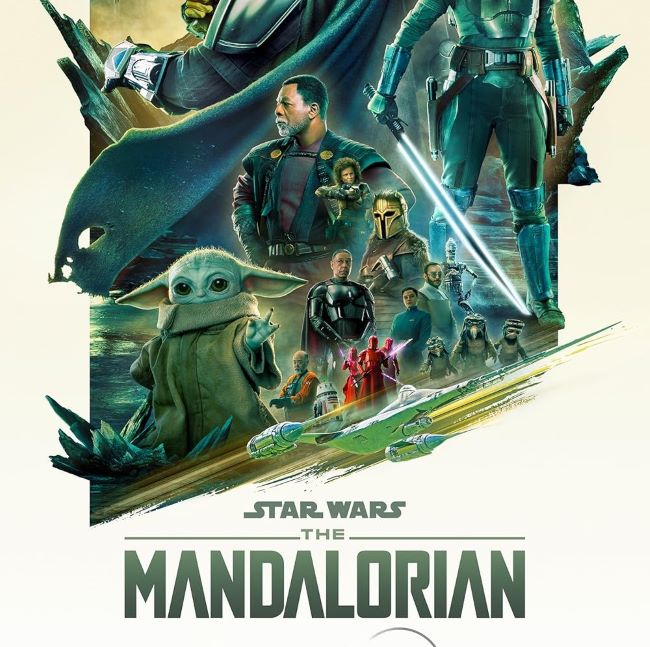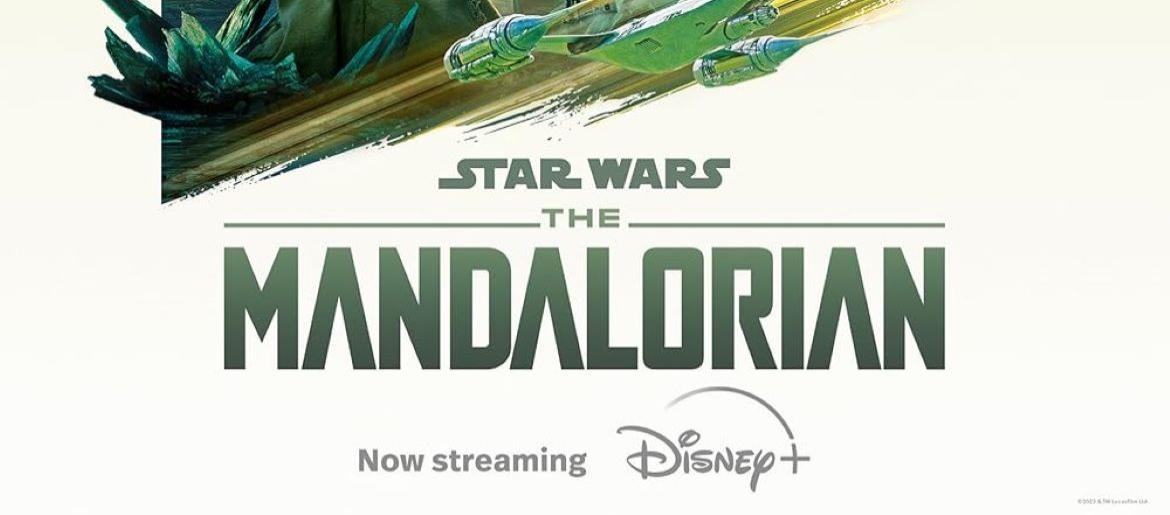
The Mandalorian Font
The Mandalorian Font has become an iconic visual element that perfectly embodies the rugged, mysterious aesthetic of Disney’s hit Star Wars series. This distinctive typeface draws inspiration from ancient warrior cultures while maintaining a futuristic edge that resonates with fans worldwide.
The typography used in The Mandalorian series reflects the show’s unique blend of Western and sci-fi genres. The font’s angular, weathered appearance mirrors the battle-worn armor of the Mandalorian warriors, creating visual consistency between the character design and title treatment. Its bold, imposing letterforms evoke strength and resilience—qualities that define the show’s protagonist, Din Djarin.
About The Mandalorian
The Mandalorian series premiered in 2019 and quickly became a cultural phenomenon. It follows Din Djarin, a lone bounty hunter navigating the outer reaches of the galaxy, as he protects a mysterious child known as Grogu. Blending Western motifs with sci-fi storytelling, the show features practical effects, cinematic visuals, and compelling characters. Much like The Mandalorian Font, the series combines strength, mystery, and a lasting visual identity that resonates with fans worldwide.